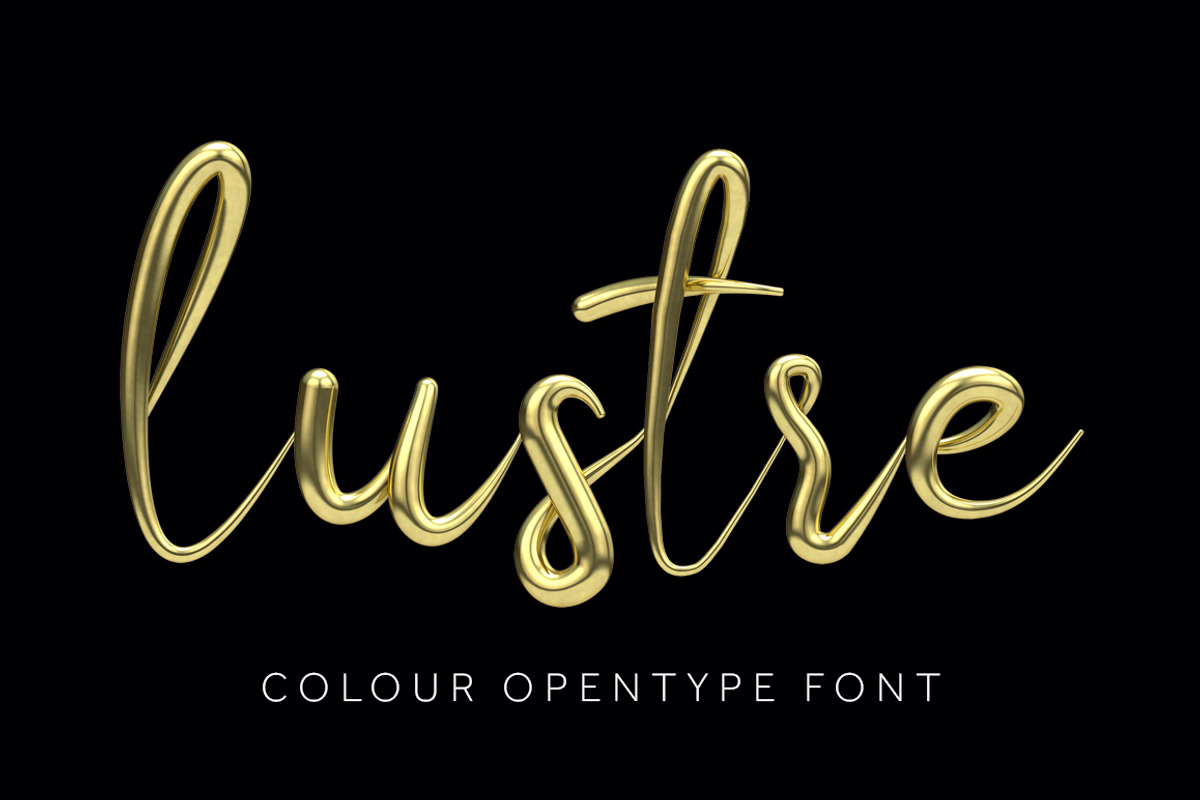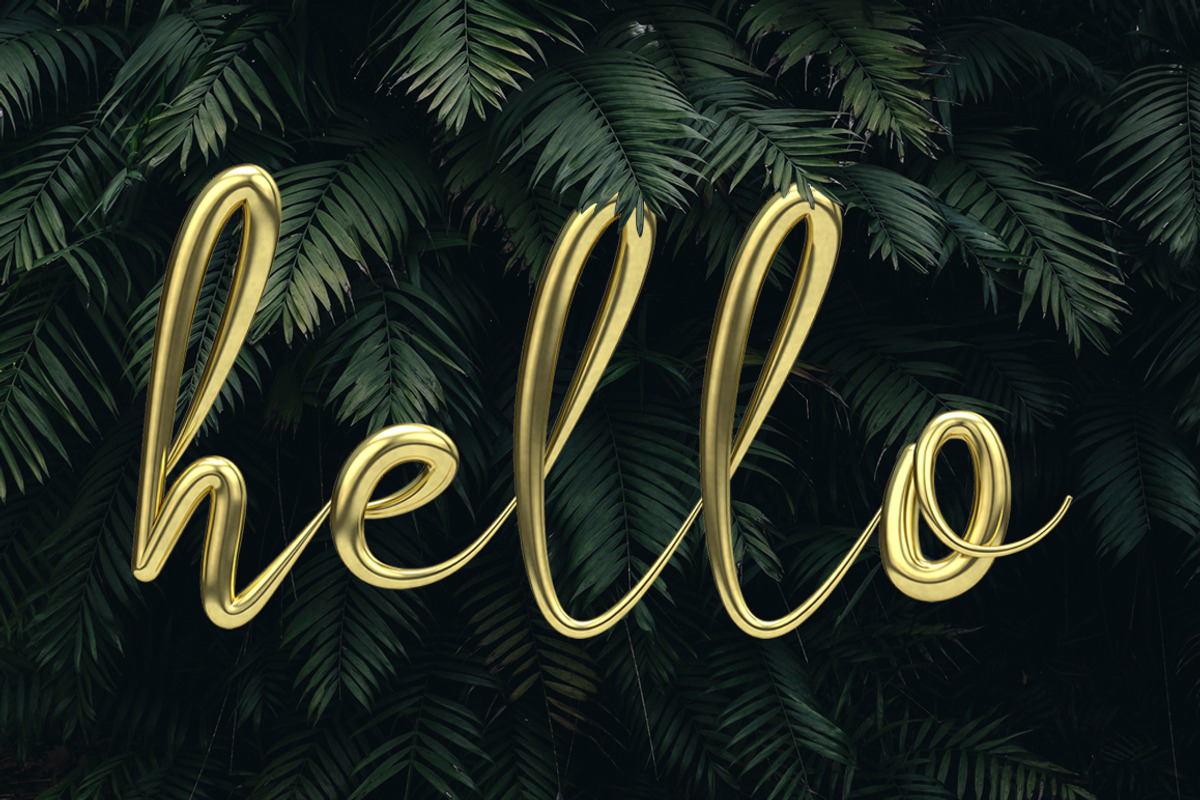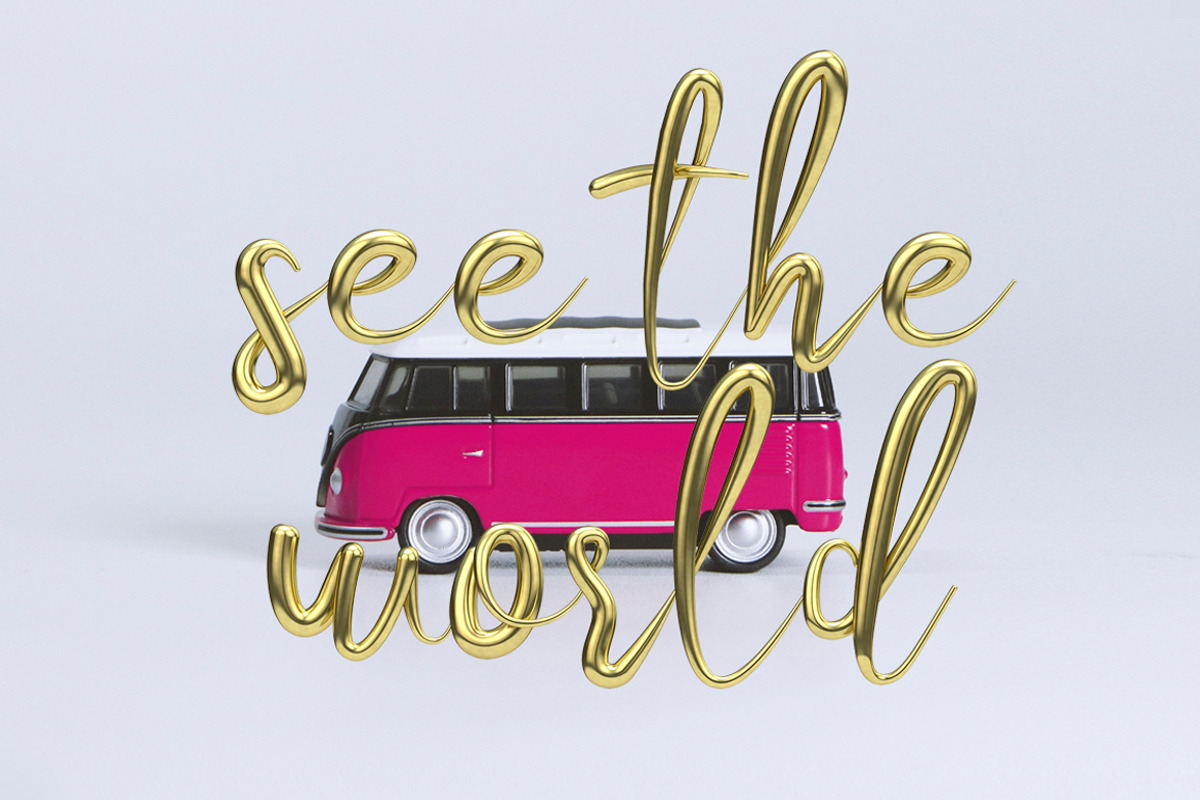
Lustre golden colour script font
Lustre colour opentype font
Lustre is a beautiful golden 3D script font full of glitz and glamour. Designed and made in 3D and transformed into an elegant colour opentype font. Its shimmering texture and smooth flowing lines make it unique and special.